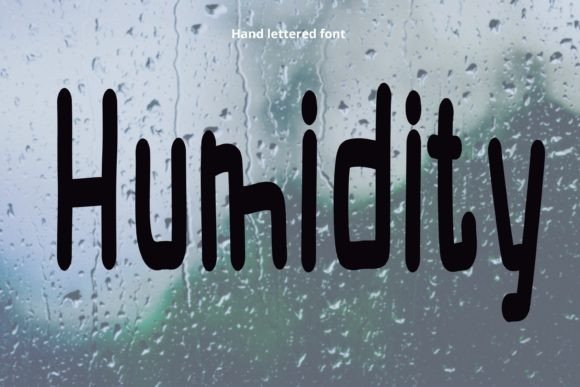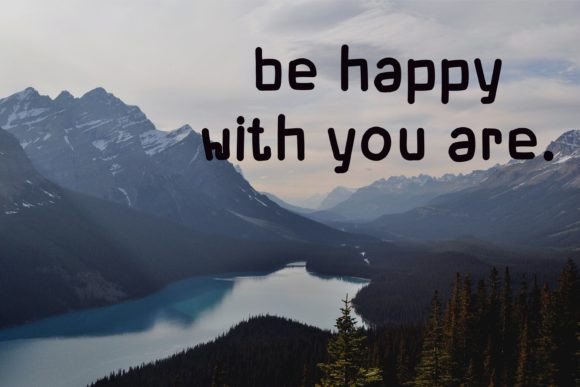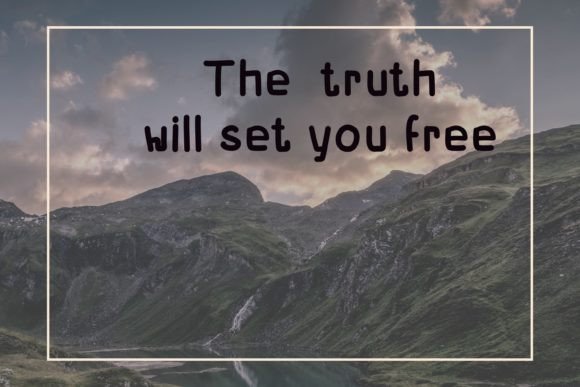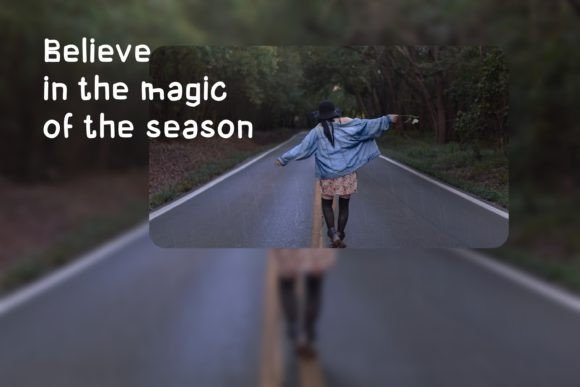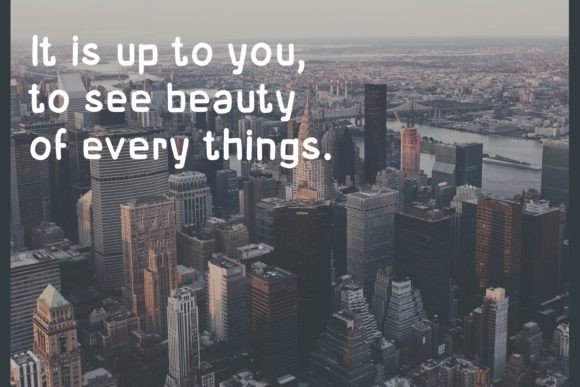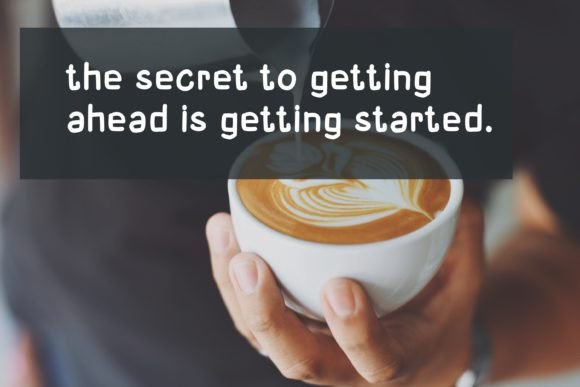
A Breath of Fresh Air in Typography
Have you ever found yourself stuck in a design rut, searching for that perfect font to breathe new life into your project? We’ve all been there – staring at a blank canvas, trying to capture the essence of a moment or emotion. For me, it’s the feeling of stepping out into a crisp morning, the air filled with a refreshing hint of humidity. It’s this sensation that inspired the Humidity Font, a simple, quirky, and informal sans serif font designed to add a personal and realistic feel to your designs.
With its authentic look, Humidity Font is the perfect addition to any designer’s toolkit. Whether you’re working on a personal project or a commercial campaign, this font will help you convey a sense of approachability and relatability that’s hard to find in more formal typefaces.
Key Features of Humidity Font
- Unique Characteristics: Features a unique blend of modern and vintage elements, with subtle texture and weather-inspired effects.
Designer Review: Humidity Font
Overall, I think the Humidity Font is a decent addition to the world of typography, but it’s not without its limitations. ✨ One of the things I like about it is its unique blend of modern and vintage styles, which can add a touch of sophistication to any design. The font’s versatility also makes it suitable for a wide range of applications, from body text to headlines.
However, there are a few areas where the Humidity Font falls short. ⚠️ For one, the font’s spacing can be a bit inconsistent at times, which can make it difficult to read in certain contexts. Additionally, some of the characters, such as the uppercase “A” and “R”, can be a bit awkward-looking, which may not appeal to everyone’s taste.
Here are some specific things I like and dislike about the Humidity Font:
- ✨ Unique blend of modern and vintage styles
- ✨ Versatile and suitable for a wide range of applications
- ⚠️ Inconsistent spacing
- ⚠️ Awkward-looking characters (uppercase “A” and “R”)
Overall, I think the Humidity Font is a solid choice for designers looking for a unique and stylish font, but it’s not perfect. With a bit of tweaking and refinement, it could be a truly excellent addition to any design arsenal.
Tip: Use Humidity Font to create eye-catching headings and titles in your Canva designs.
Tip: Use Humidity Font to create unique and creative typography in your Adobe projects.
Tip: Use Humidity Font to add a touch of elegance to your presentations and documents.
Humidity Font is perfect for:
- Creating eye-catching headings and titles.
- Adding a touch of elegance to presentations and documents.
- Designing unique and creative typography.
Open Sans is a clean and modern sans-serif font, perfect for digital products and websites. It is highly legible and works well in a variety of contexts. Open Sans is a more neutral font compared to Humidity Font, which has a more distinctive and stylized feel.
Use Open Sans when you want a clean and modern look without drawing attention away from the content.
Lato is a sans-serif font with a strong emphasis on readability and legibility. It has a slightly more rustic feel compared to Humidity Font, making it suitable for use in editorial content or design projects that require a touch of sophistication.
Use Lato when you want a font that is both modern and timeless, with a unique character that sets it apart from more generic sans-serif fonts.
What is the recommended font size and line height for optimal readability with Humidity Font?
For optimal readability, we recommend using a font size between 12 and 24 points, depending on the context and the intended audience. For body text, a line height of 1.2 to 1.5 times the font size is recommended. For headings, a line height of 1.5 to 2 times the font size is suitable. This will ensure that the text is easy to read and visually appealing.